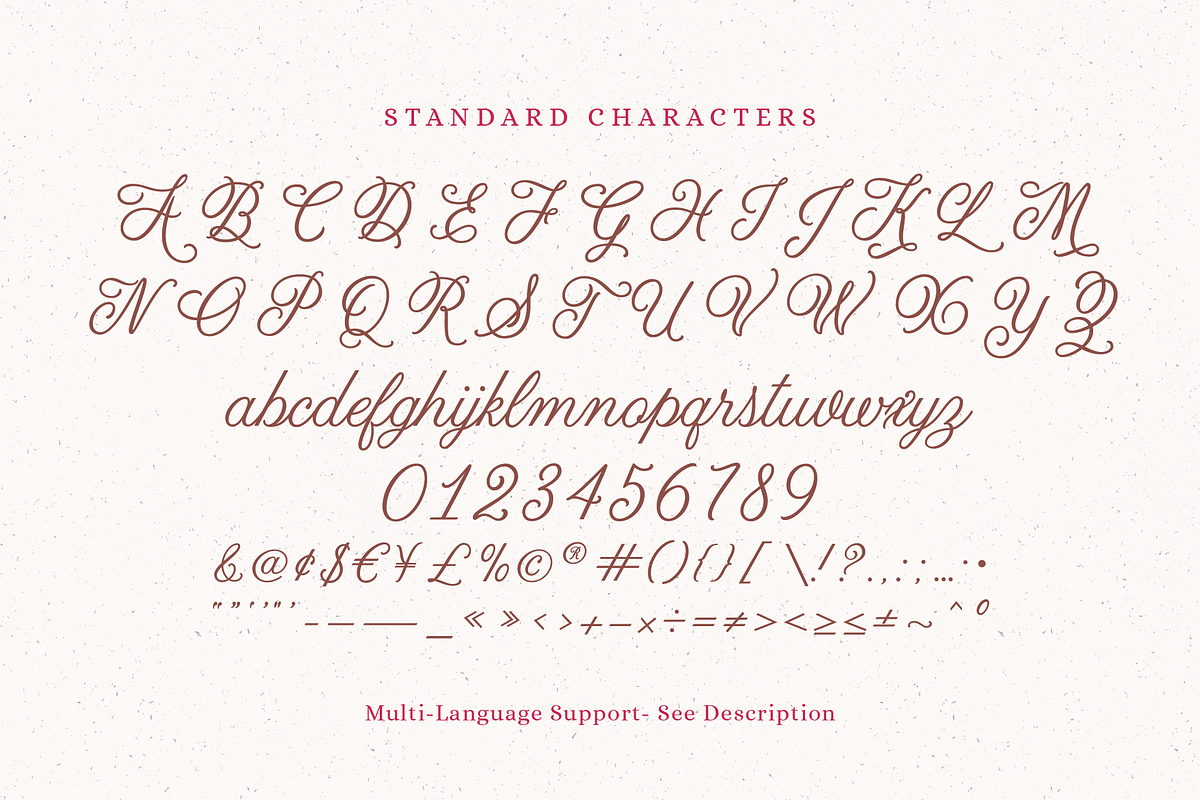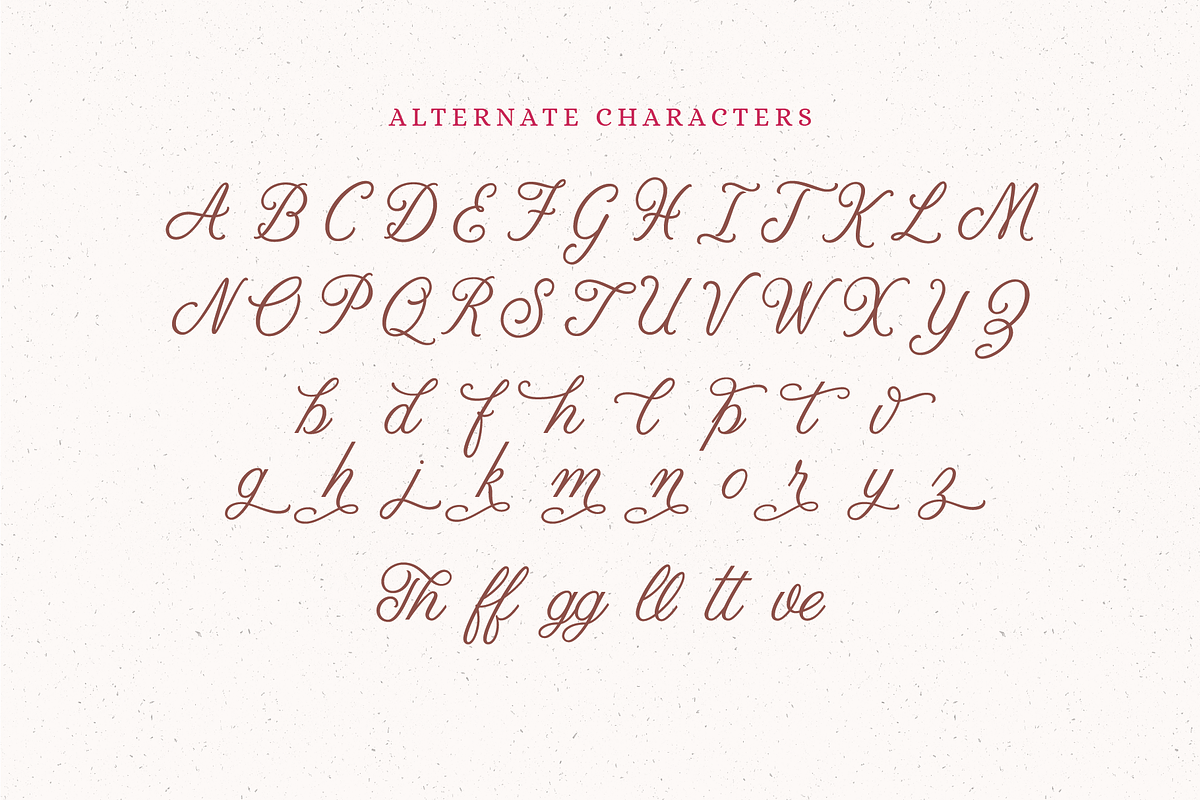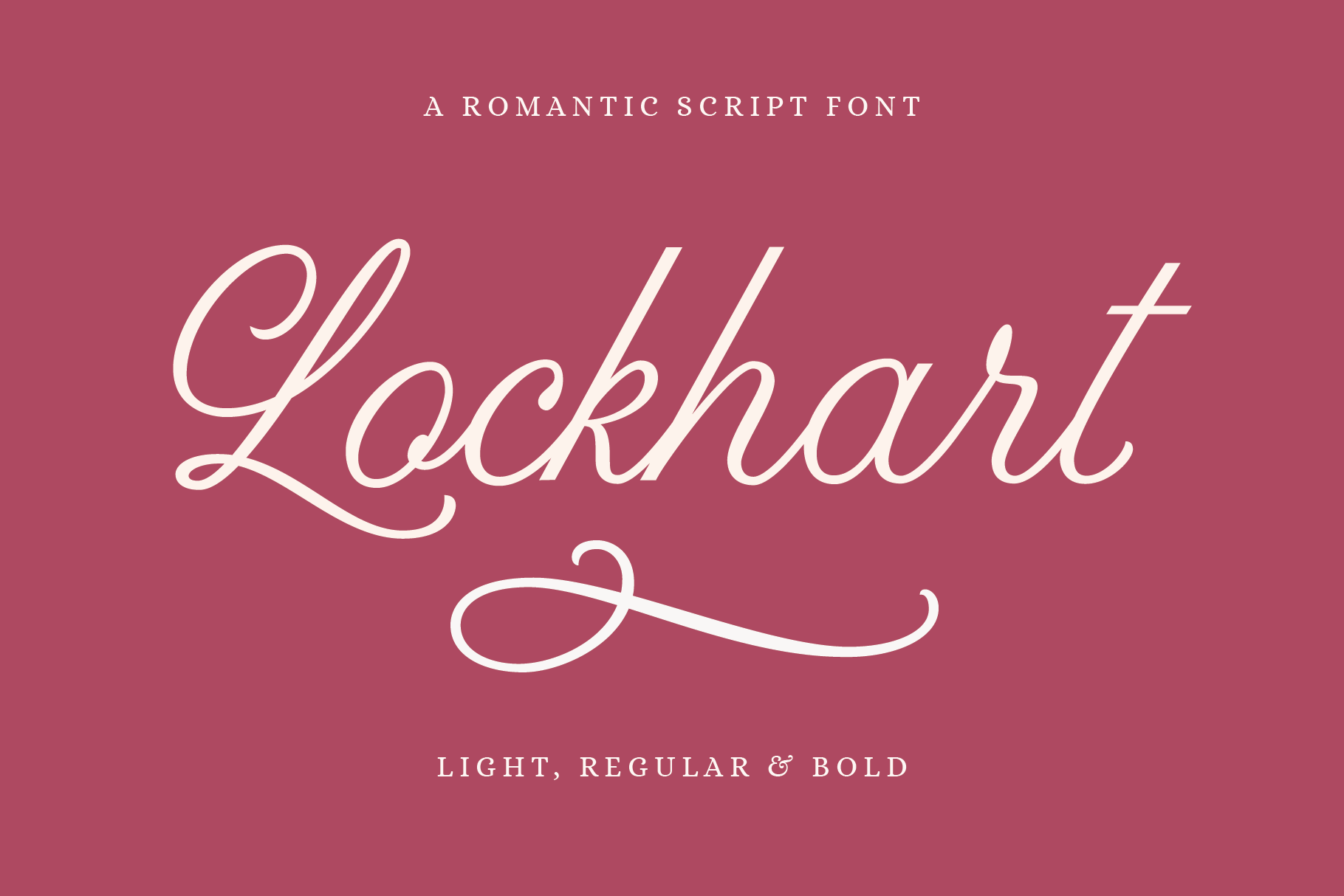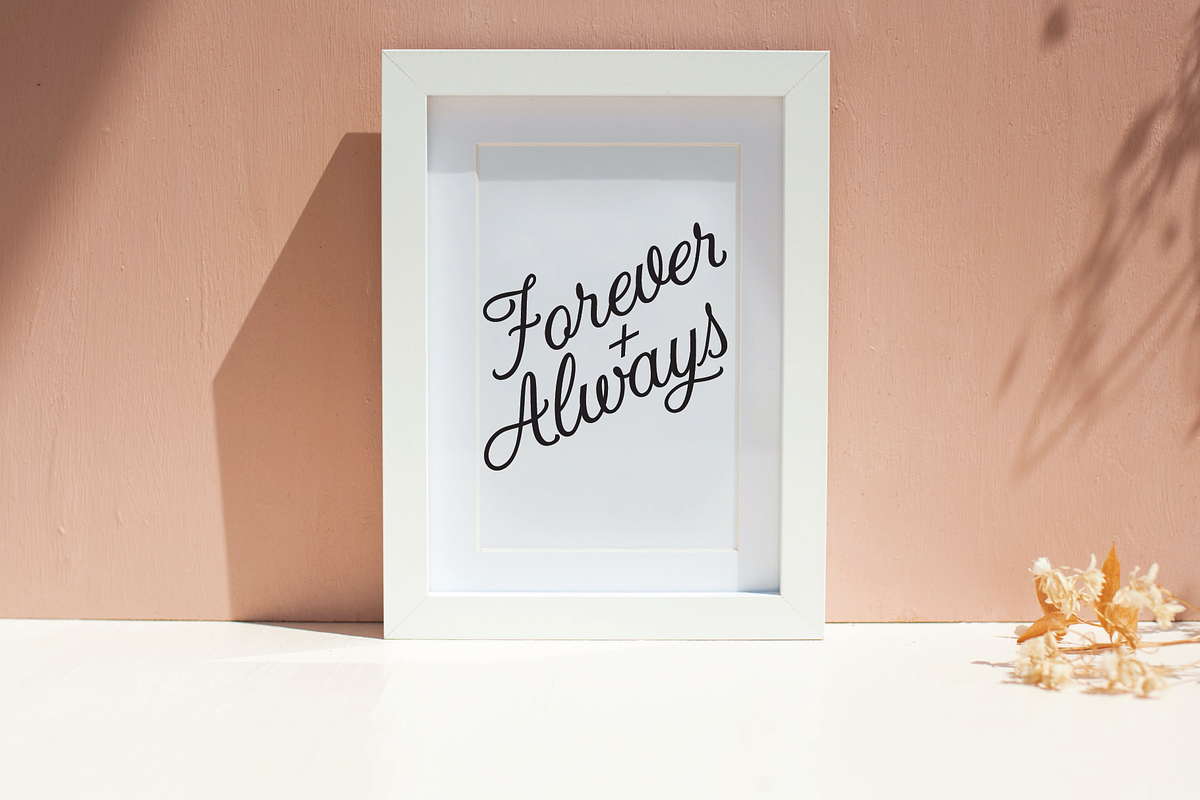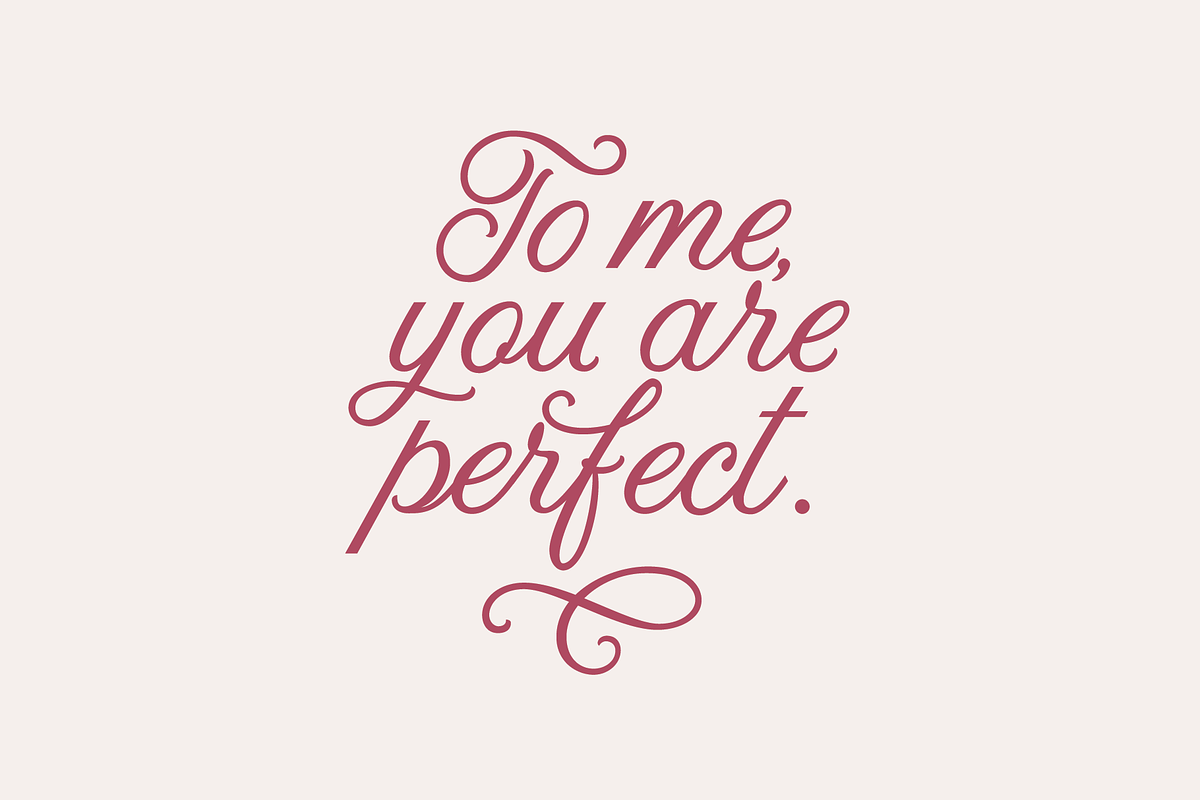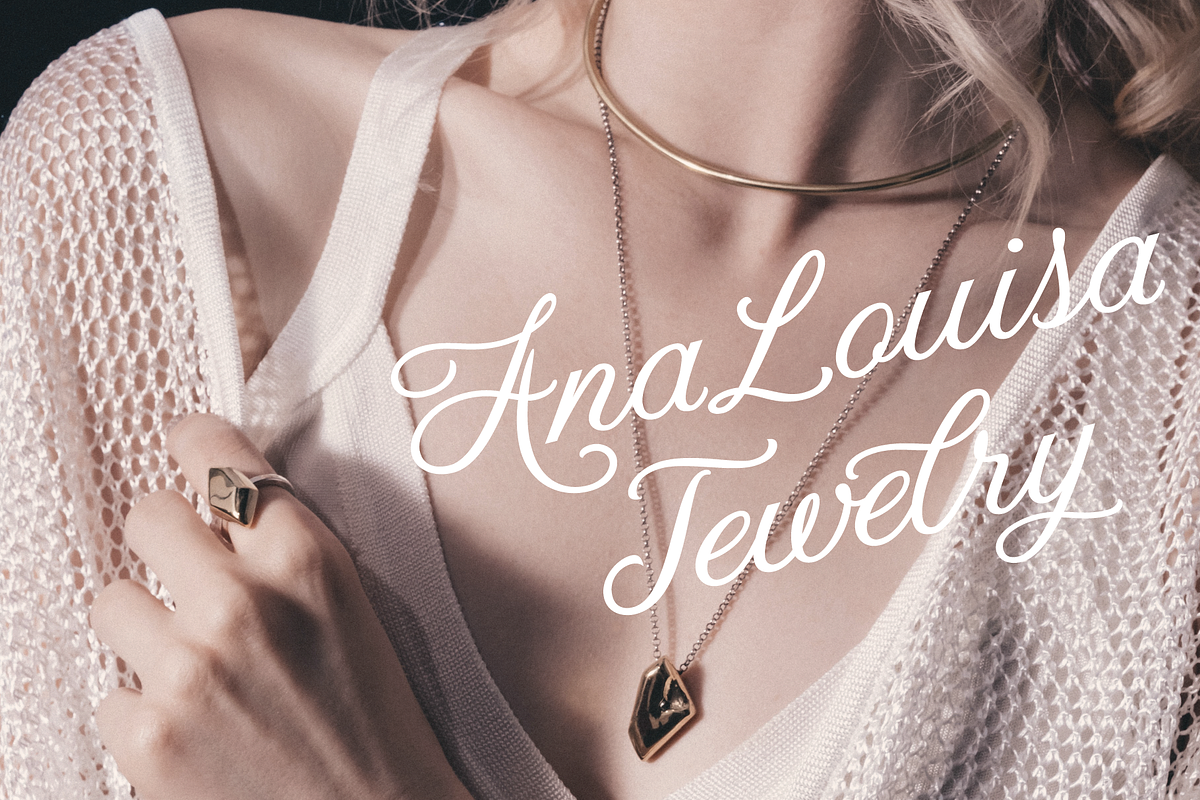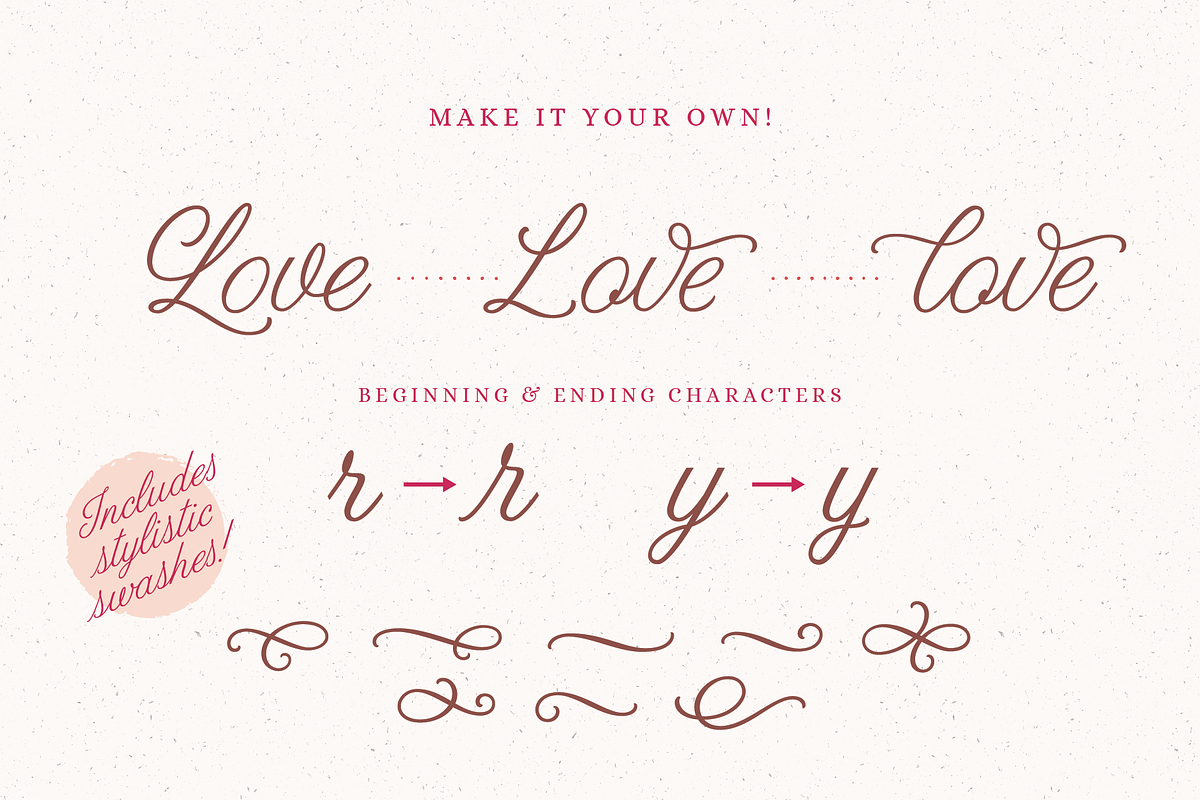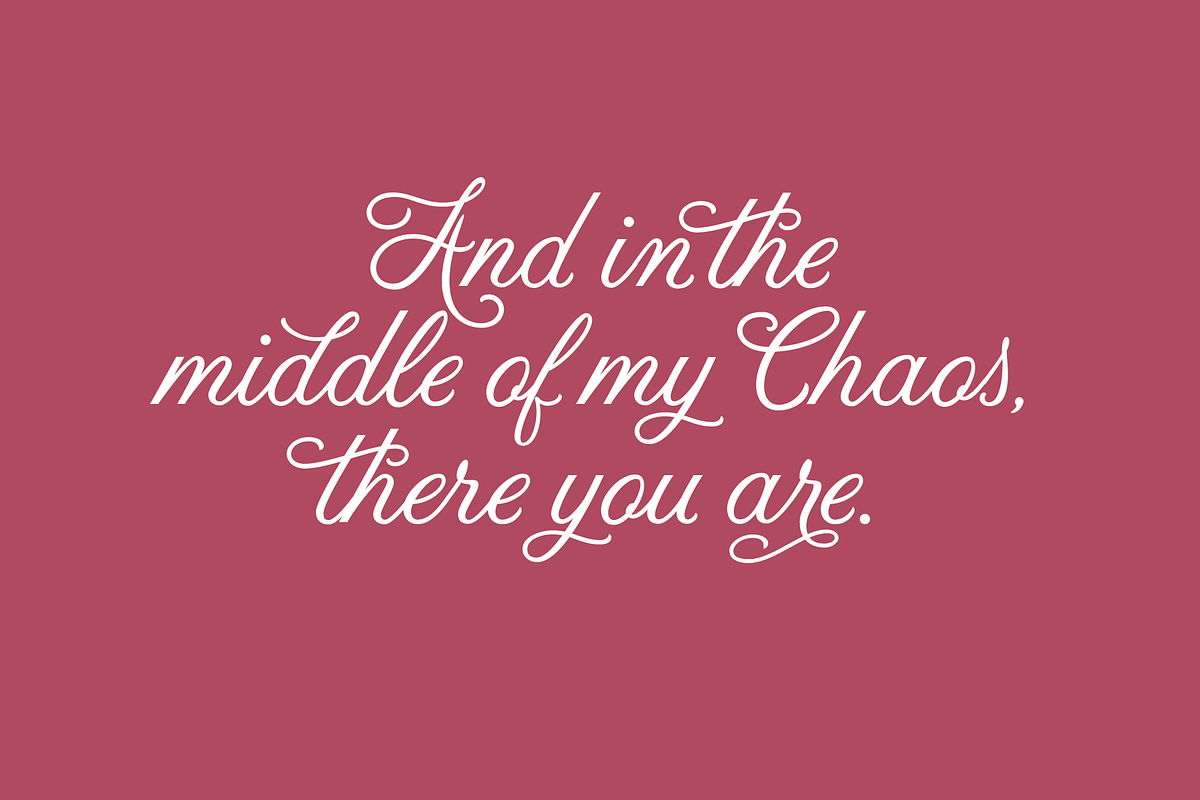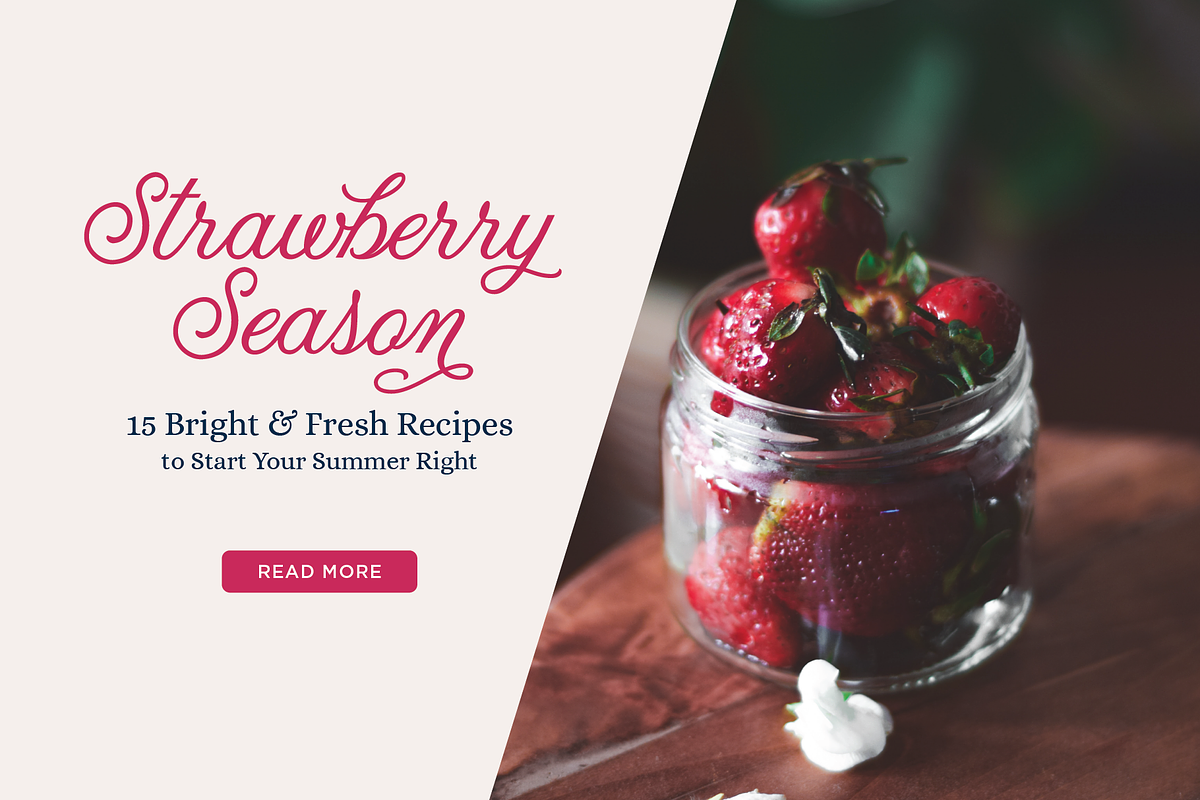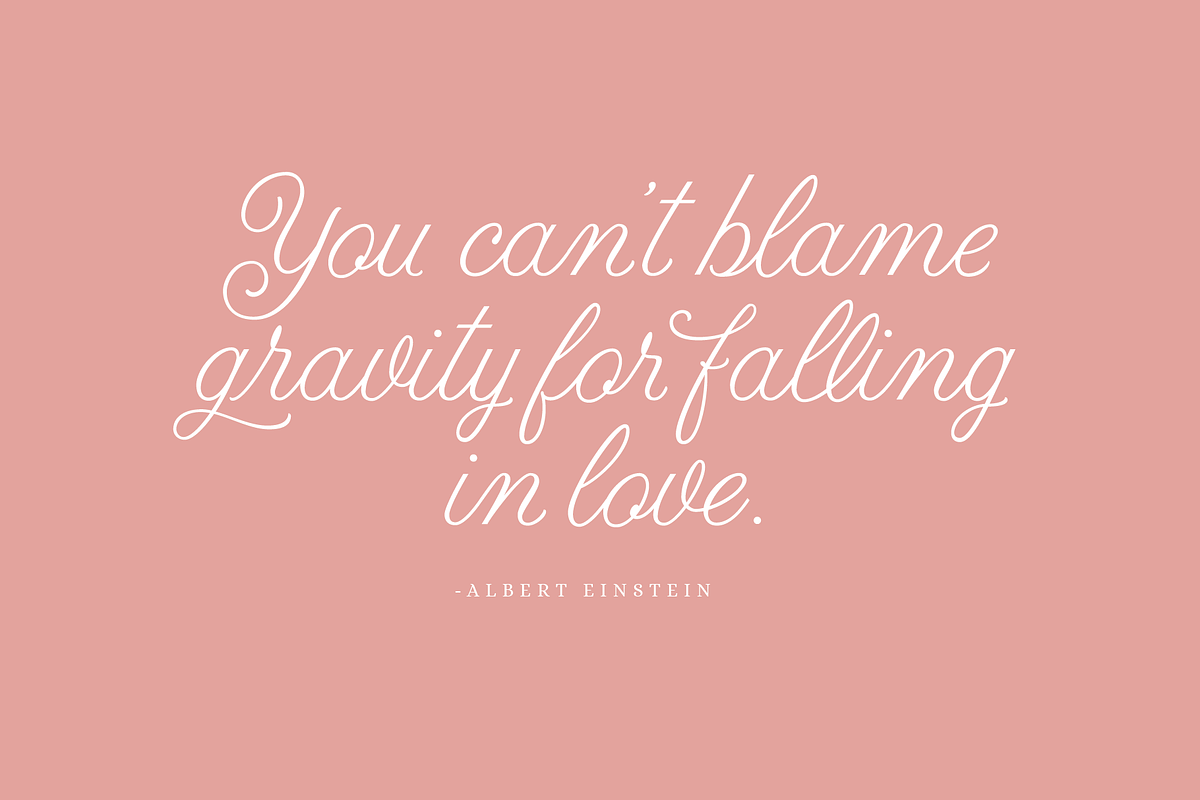
Lockhart- Romantic Script Font
Lockhart is a romantic, modern script font designed to add an elegant, polished look to your next design project. It has 2 sets of uppercase letters to create both formal and causal script looks. It includes custom swashes, opentype features and ligatures to make your designs more unique and customizable.
Lockhart works great for most design projects needing that beautiful, polished script look- branding and logos, wedding designs, social media posts, advertisements, product packaging, product designs, labels, photography, invitations, and more.
Lockhart comes with 3 weights- light, regular and bold. 373 glyphs are included- 2 uppercase sets, 1 lowercase set, numerals, punctuation, 24 alternate lowercase characters, 13 ligatures, 8 swashes and additional OpenType features.
373 glyphs — 2 uppercase sets, 1 lowercase set, numerals, punctuation, 24 alternate lowercase characters, 13 ligatures, 8 swashes for more customization.
Multilingual Support — Multilingual Support is included for Western European Languages. Supported Characters: AÀÁÂÃÄÅCÇDÐEÈÉÊËIÌÍÎÏNÑOØÒÓÔÕÖUÙÜÚÛWYÝŸỲŸÆŒßÞþ